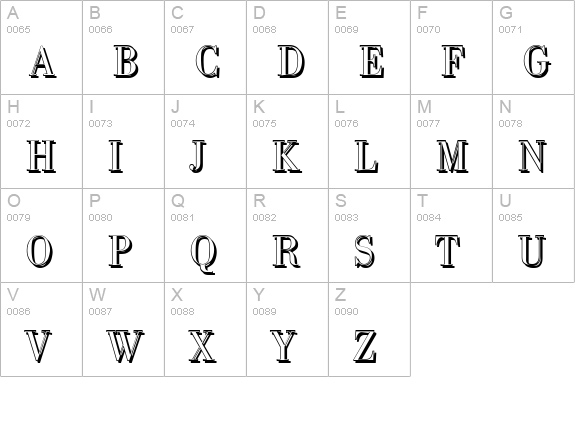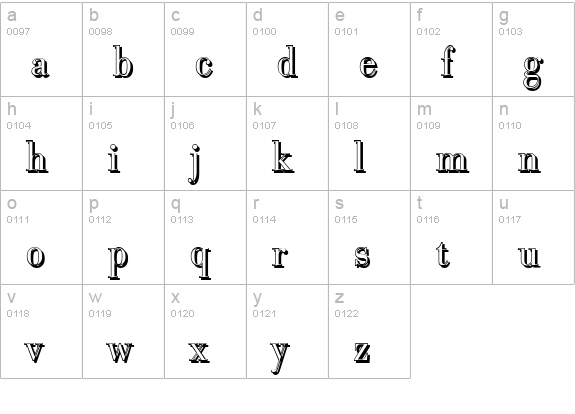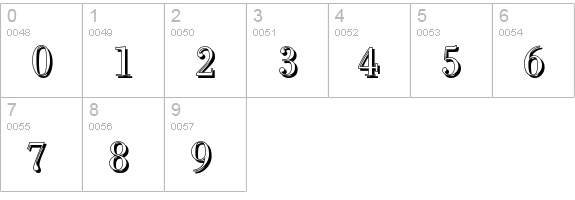
BodoniShadow-Light-Regular is a refined, elegant variant in the BodoniShadow typeface family \xE2\x80\x94 well suited to elegant body text, refined sub-headings, and luxury branding.
BodoniShadow-Light-Regular font is a stylish and elegant typeface that exudes sophistication and class. With its sleek lines and delicate serifs, this font is perfect for adding a touch of luxury to any design project. The light weight of the font gives it a subtle and refined appearance, making it ideal for titles, headings, and other display purposes. What makes BodoniShadow-Light-Regular font even more appealing is that it is available for free download at FontsMarket.com. This means that you can easily access this beautiful typeface without any cost, making it a valuable addition to your font collection. Whether you're working on a professional project or a personal creative endeavor, BodoniShadow-Light-Regular font is sure to elevate your designs with its timeless charm and sophistication. Download it now and add a touch of elegance to your next project!